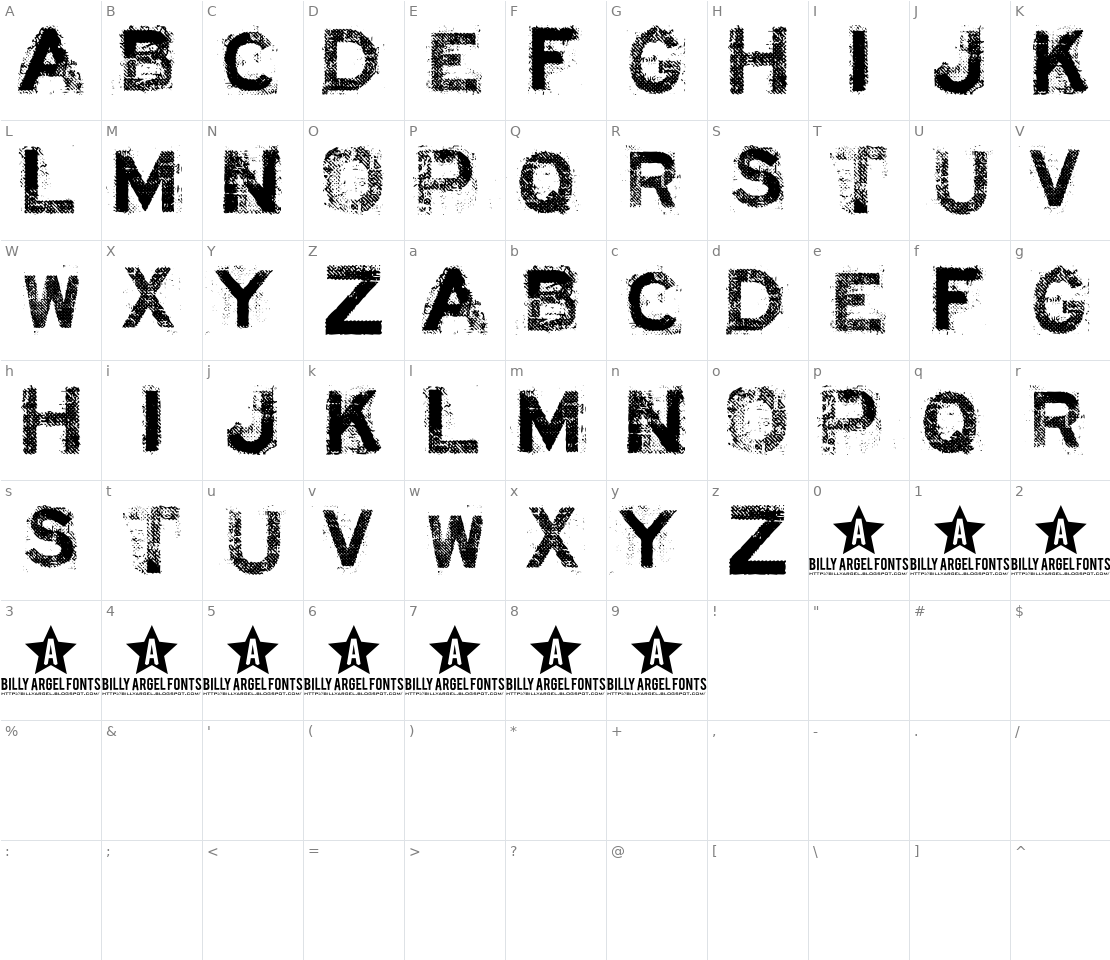
Acid Label
Acid Label is a bold, uppercase display face from Billy Argel with heavily worn letterforms that look like they've been peeled off old factory signage. The rough, eroded texture gives every character a gritty, industrial presence that works naturally on posters, album covers, and packaging where you want type that feels weathered and physical. Strictly a headline face, built for impact at large sizes where the distressed detail comes through.